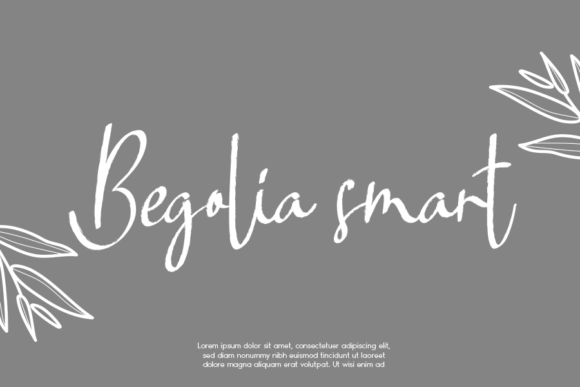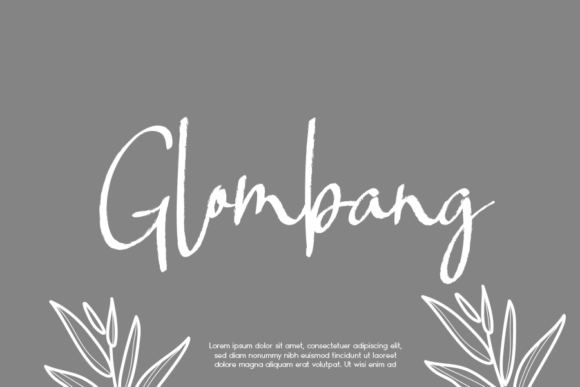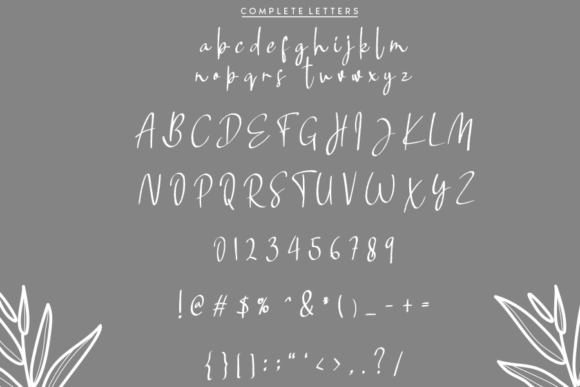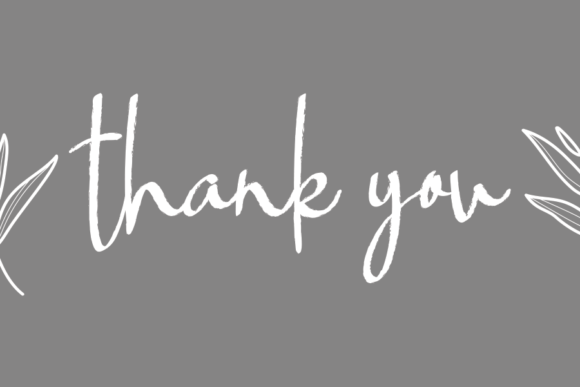
Introduction to Hamgede Font
Hamgede is a delicate and unique handwritten font.
Its distinct style makes this font fit for a wide pool of contexts Add it to your most favorite projects, and notice how Hamgede makes them come alive.
Key Features of Hamgede Font
Why Choose Hamgede Font?